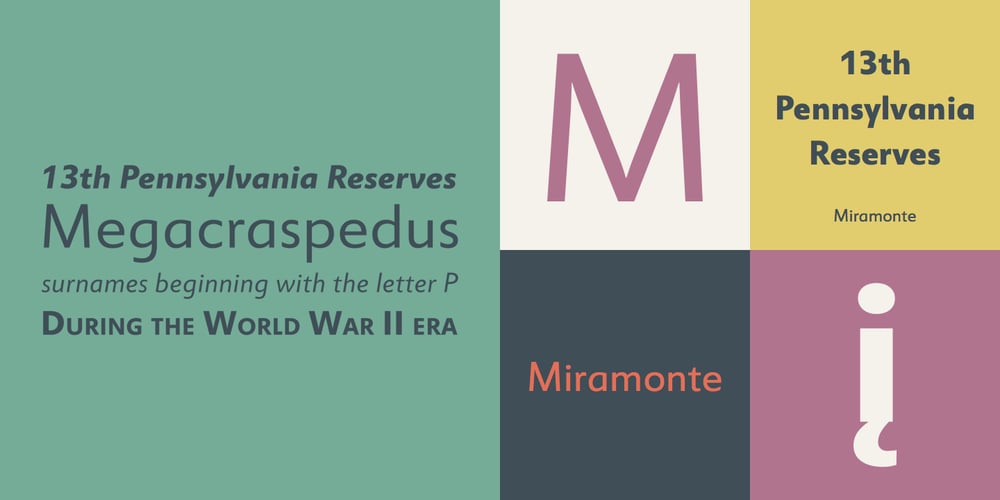
Miramonte Font Family was designed by Steve Matteson and published by Ascender. Miramonte contains 4 styles and family package options. Miramonte Pro was designed by Steve Matteson in 2006 as a friendly sans serif design suitable for user-interface design, corporate branding and publishing. The name means ‘behold the mountains’ in Spanish, suggesting the rustic, unrefined type design. Miramonte is based on Stanislav Marso’s humanist sans serif released by Grafotechna in 1960. This revival includes a cursive style italic rather than a sloped roman. Miramonte Pro includes an extensive character set for publishing Central and Eastern European languages. Its OpenType features include proportional figures, and tabular figures.